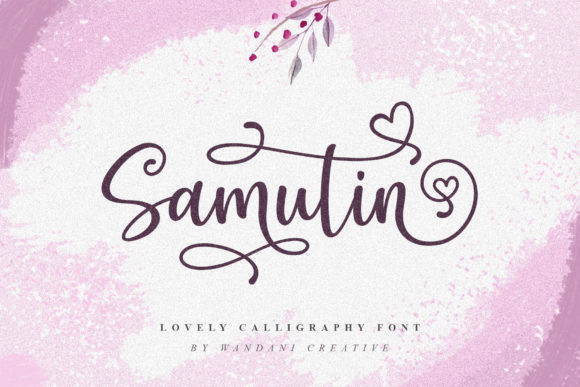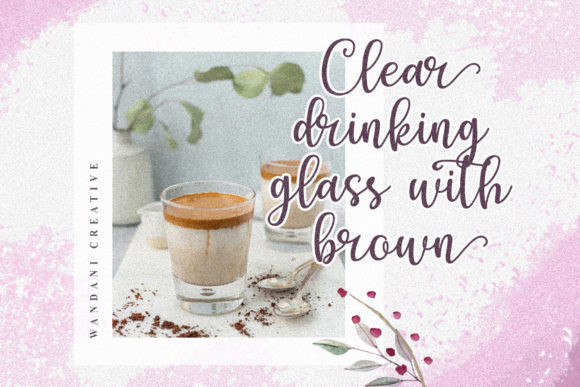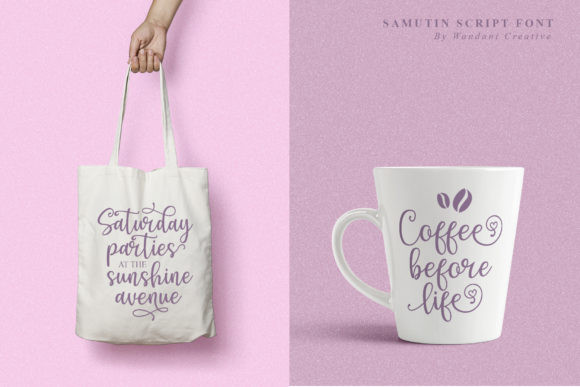
Samutin Font
Samutin is a modern handwritten font with special heart characters. Fall in love with its authentic feel and use it to create gorgeous wedding invitations, beautiful stationary art, and cute greeting cards.